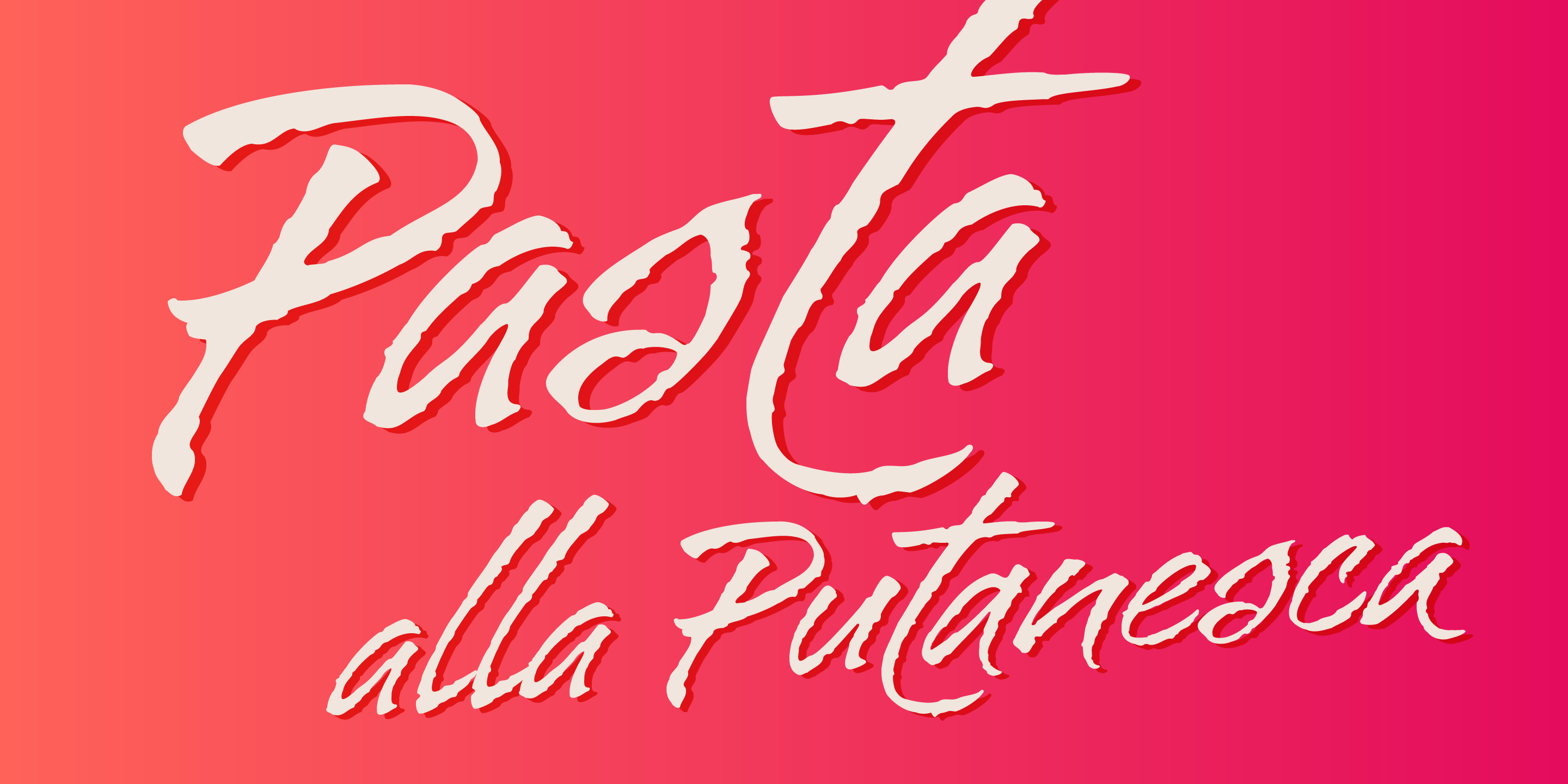
Bravissima Script Free Download
Bravissima Script Font Free Download
Bravissima Script Font Free Download is a graceful and elegant script typeface that brings the charm of handwritten calligraphy into modern design. With its flowing strokes and romantic curves, Bravissima Script is perfect for wedding invitations, beauty branding, personal stationery, and high-end packaging.
Its authentic, hand-lettered style adds a personal touch to any design, while maintaining readability and class. Bravissima Script Font Free Download offers a sophisticated look that instantly elevates your visual projects with a sense of artistry and emotion.
Let your creativity bloom with Bravissima Script Font Free Download. Whether you're designing for love, luxury, or lifestyle, this font delivers elegance in every curve.